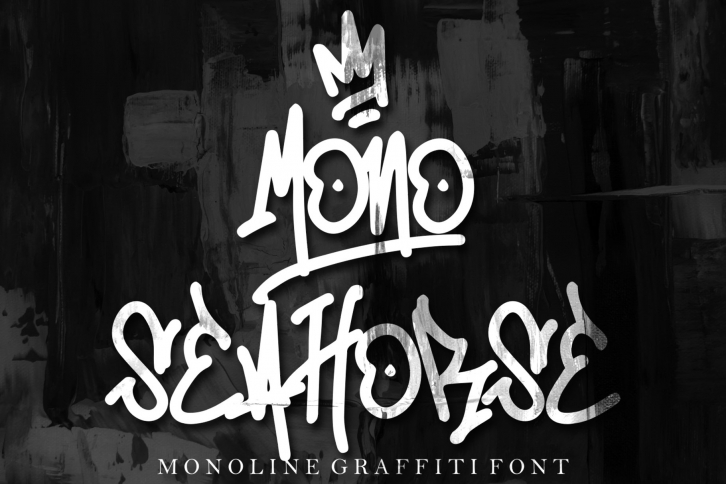
Mono Seahorse is a great font that was designed by cikareotype. Imagine the amount of combinations you can create using this font! The archive is 4.84 MB and it was released on May 12, 2022. Mono Seahorse looks beautiful on wedding invitations, greeting cards, logos, posters, labels, t-shirt designs, logos, business cards and is perfect for use in ink or watercolor works, fashion, magazines, packaging and food menus, children's books and more!